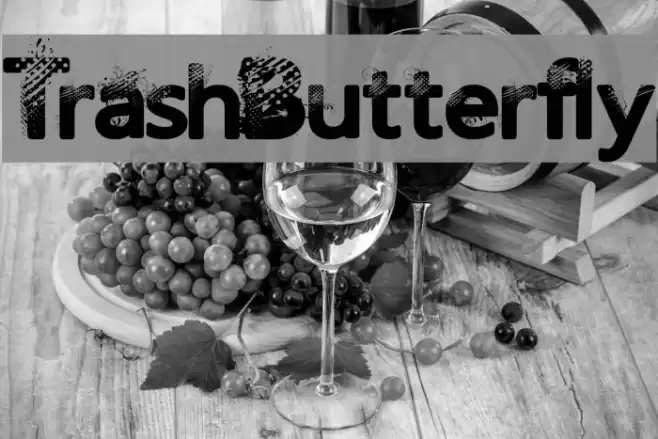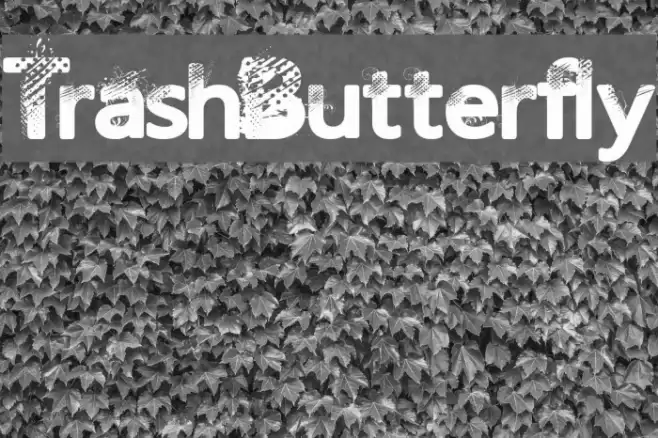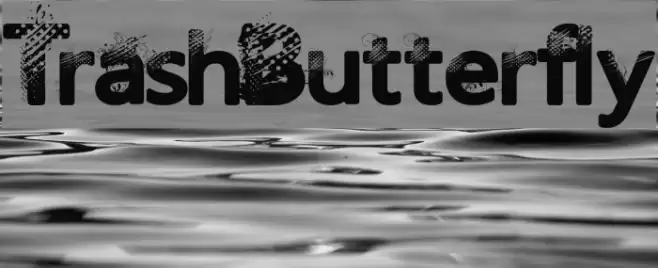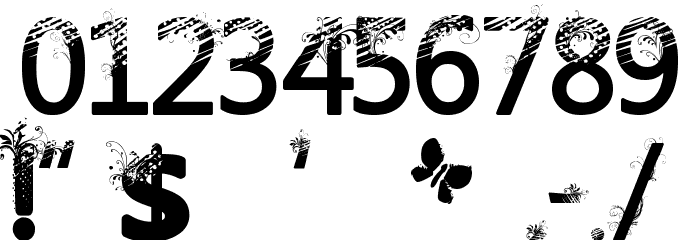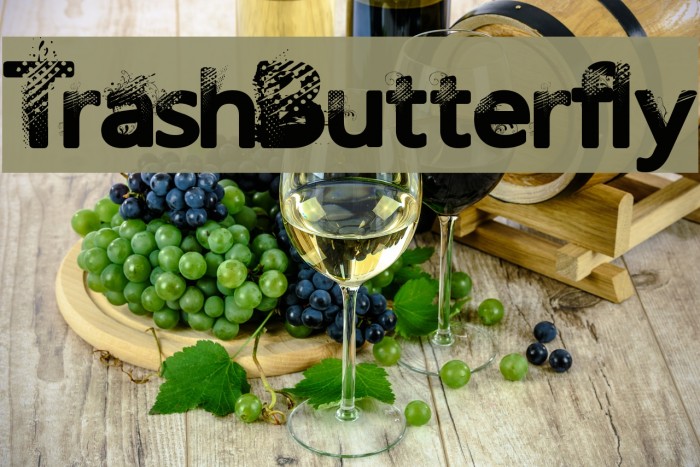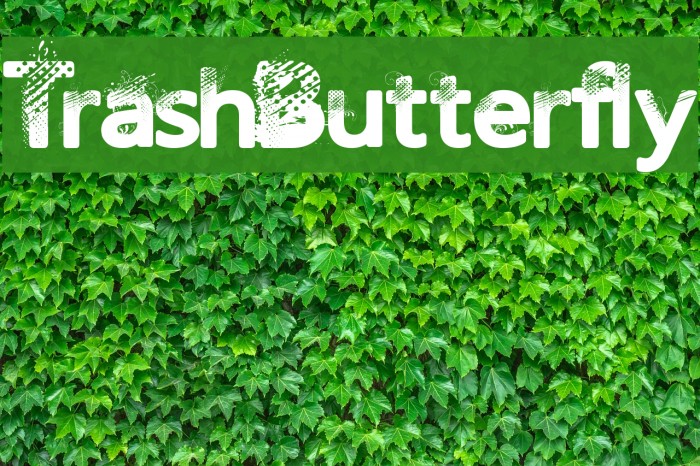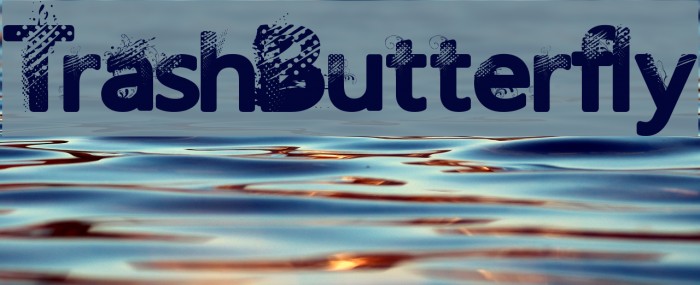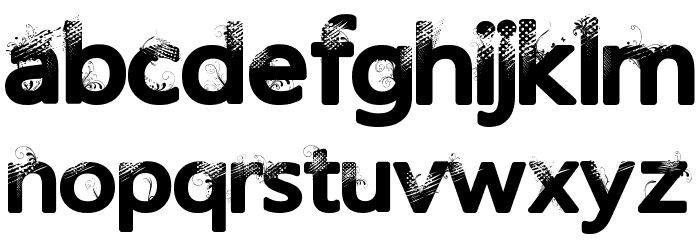
TrashButterfly Font
TrashButterfly Description
This font features a bold and decorative style, characterized by intricate butterfly and floral embellishments integrated into the letterforms. The uppercase letters are particularly ornate, with detailed patterns that give a sense of movement and elegance. The lowercase letters maintain a more straightforward design, offering a balance between readability and artistic flair. The numerals and special characters also carry the decorative theme, making them suitable for creative and eye-catching designs. This font's unique aesthetic makes it ideal for projects that require a touch of whimsy and sophistication.
A bold, decorative font with butterfly and floral embellishments from Decorative fonts.
- Proposed Projects: Ideal for wedding invitations, greeting cards, posters, and artistic branding.
- Use Case: Headlines, Logos, Artistic projects